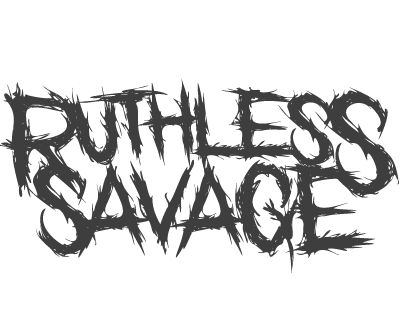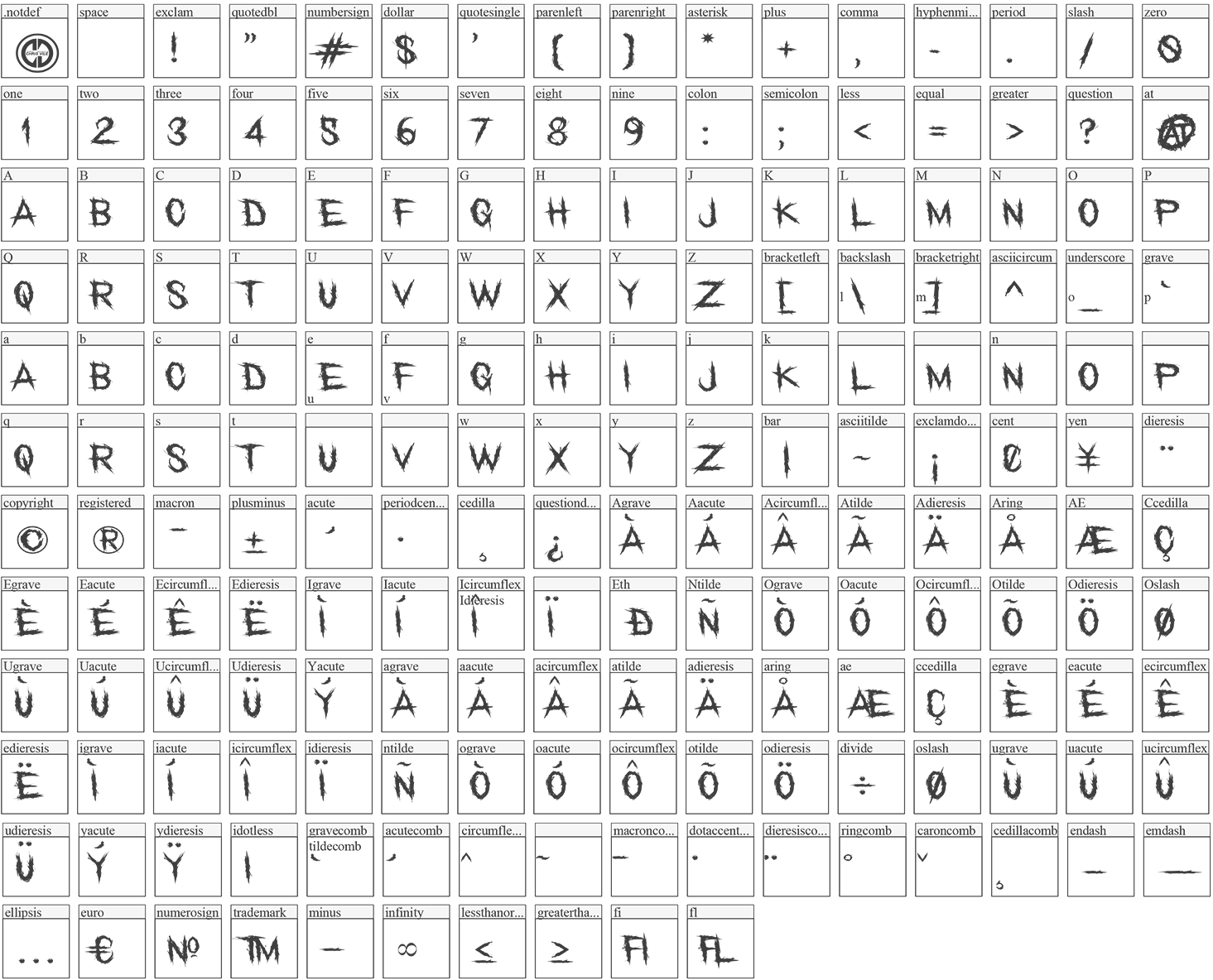
Ruthless Savage Font
Add a touch of terror to your designs with Ruthless Savage, the ultimate horror-themed brushed font.
Features:
- Brushed Style: Meticulously crafted to resemble brush strokes, giving each letter an authentic, hand-painted look.
- Horror Theme: Designed with a heavy emphasis on horror, perfect for creating a chilling atmosphere.
- Versatile Application: Ideal for horror movie posters, gothic book covers, death metal album art, Halloween party invites, and more.
- Comprehensive Character Set: Includes Basic Latin and Latin Supplement, numbers, and most symbols, ensuring you have all the characters you need for your designs.